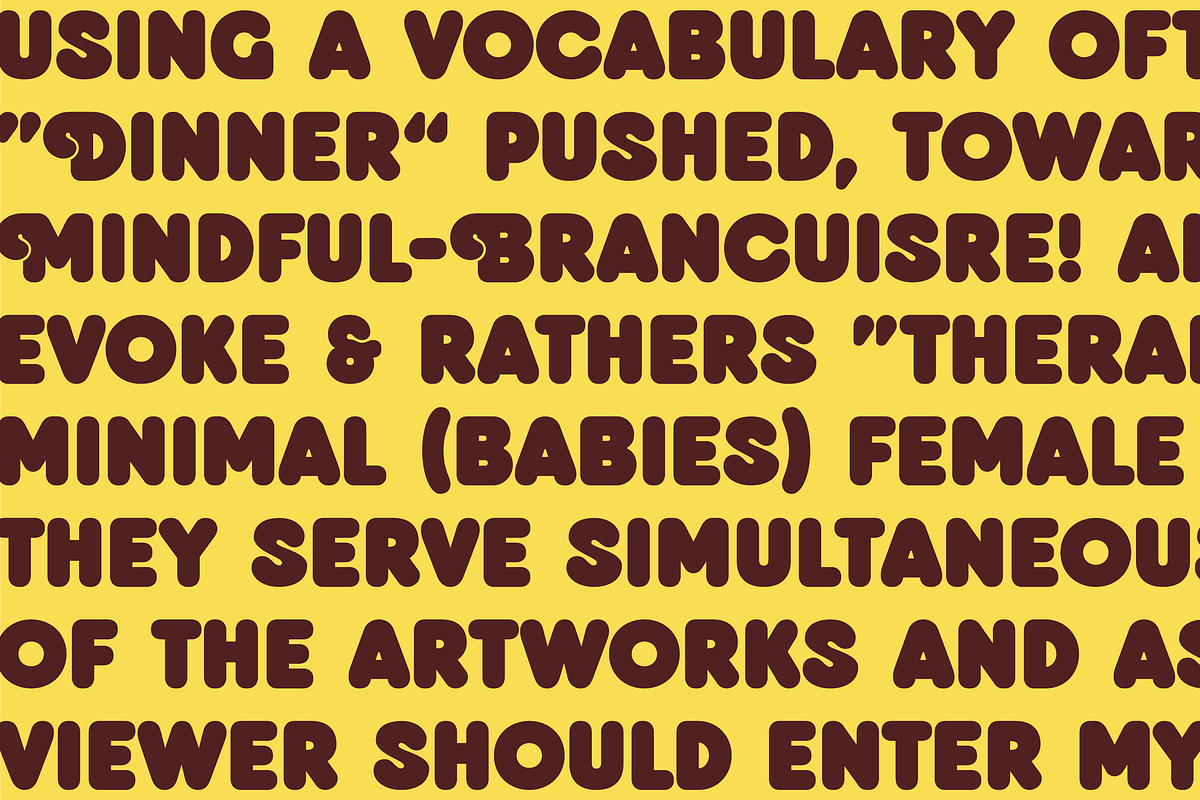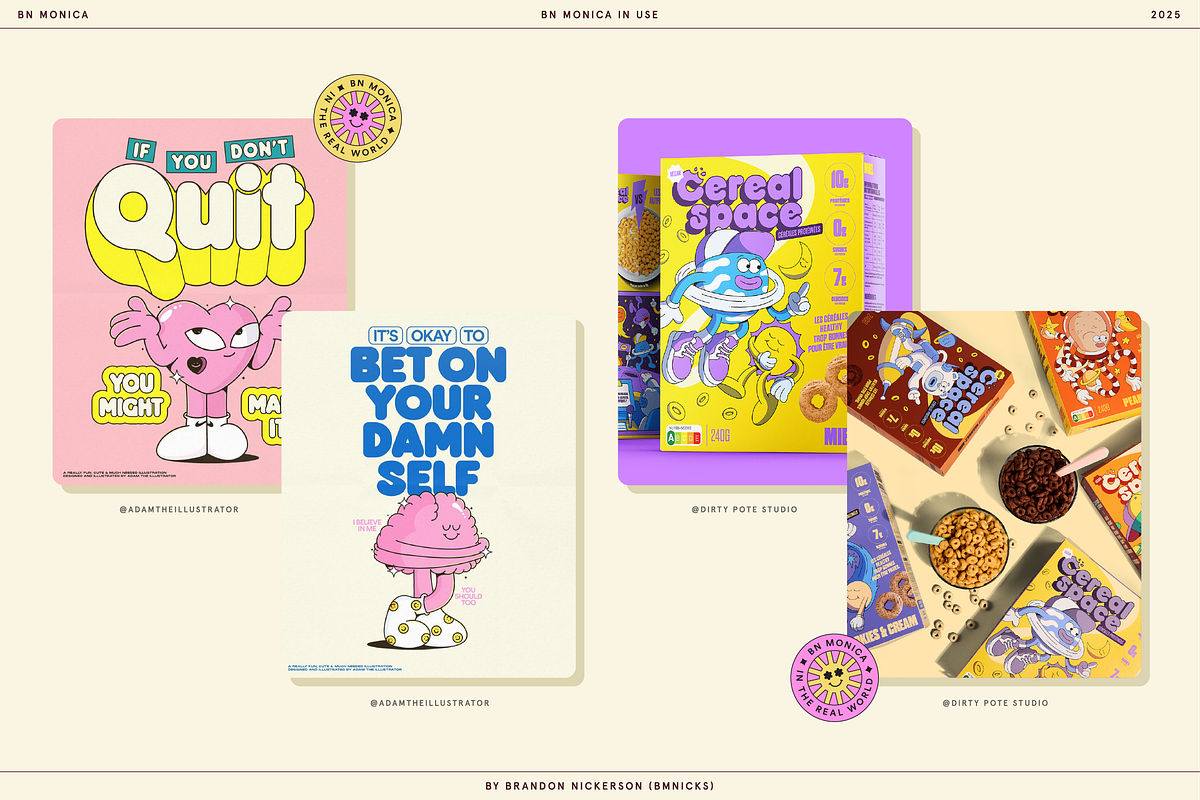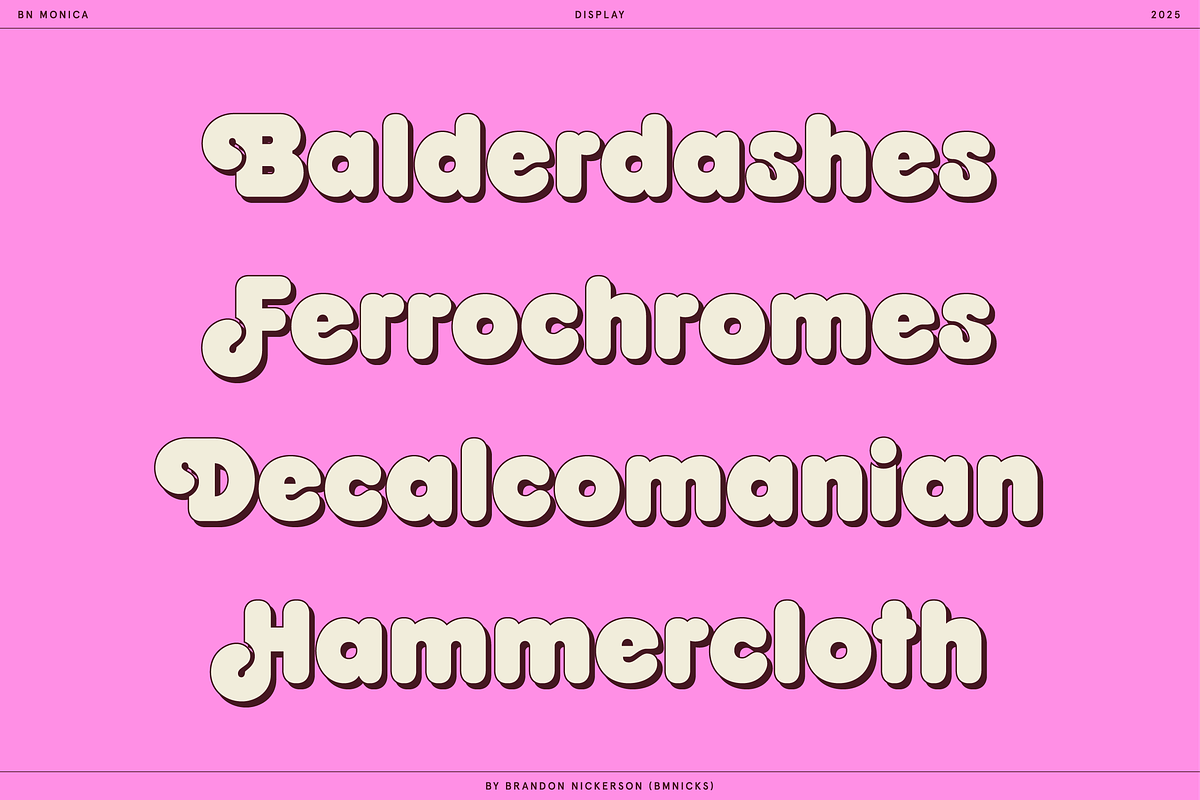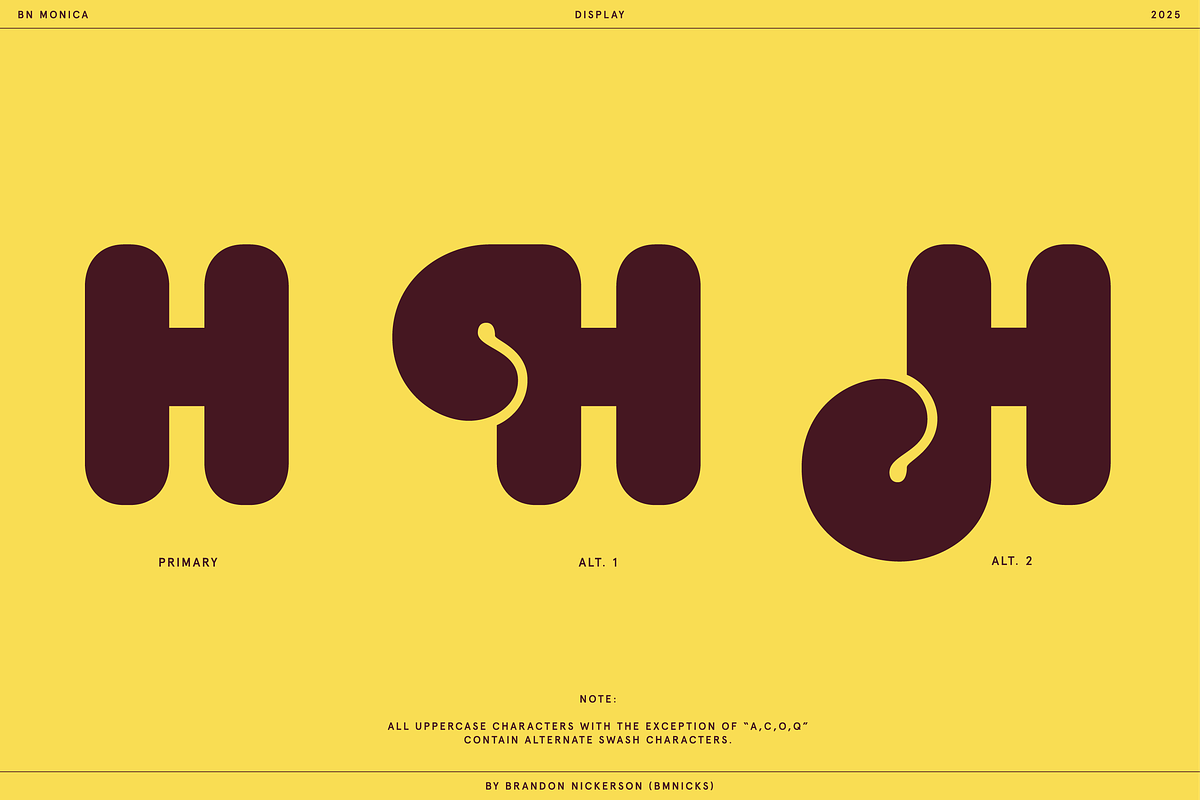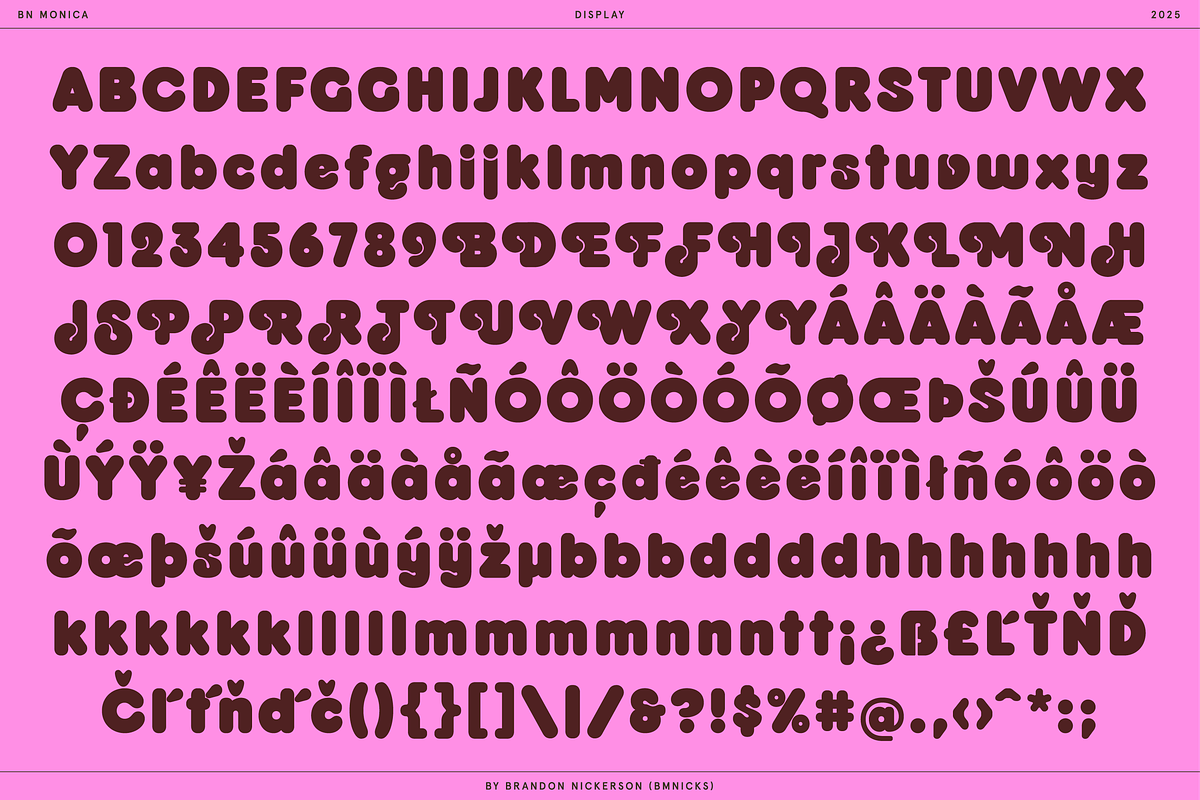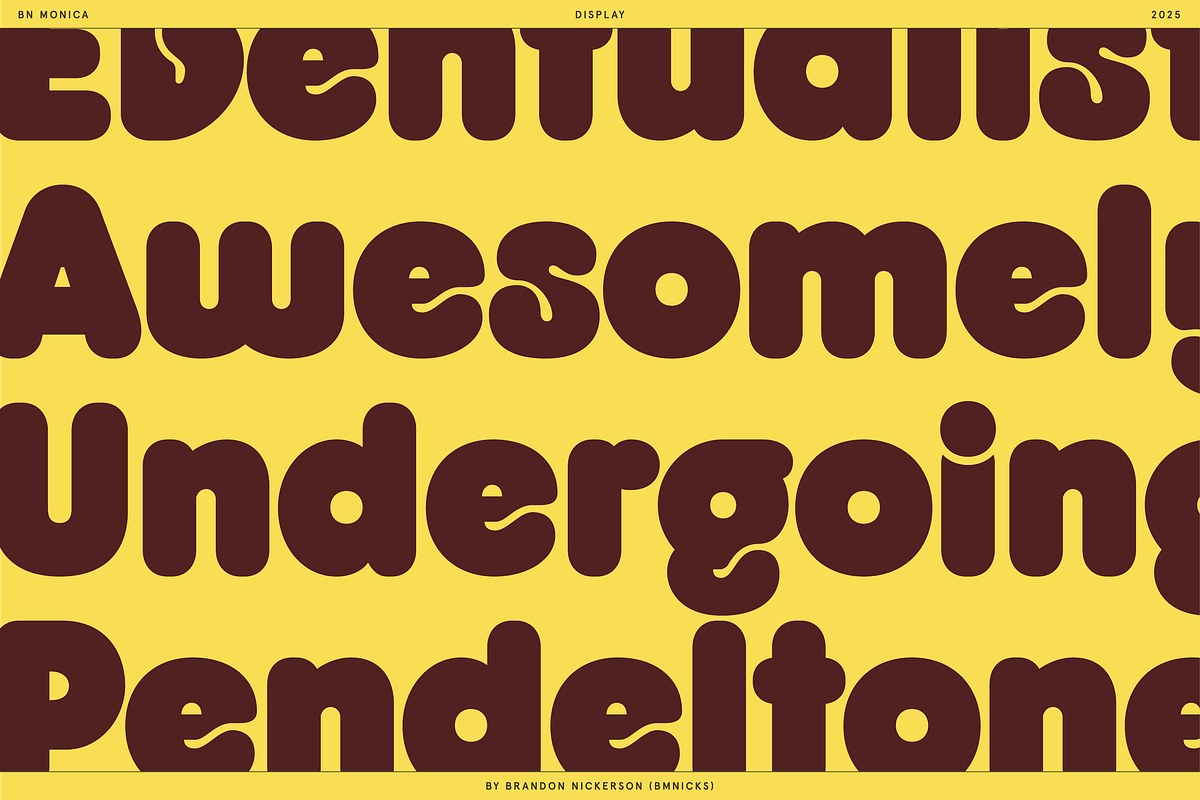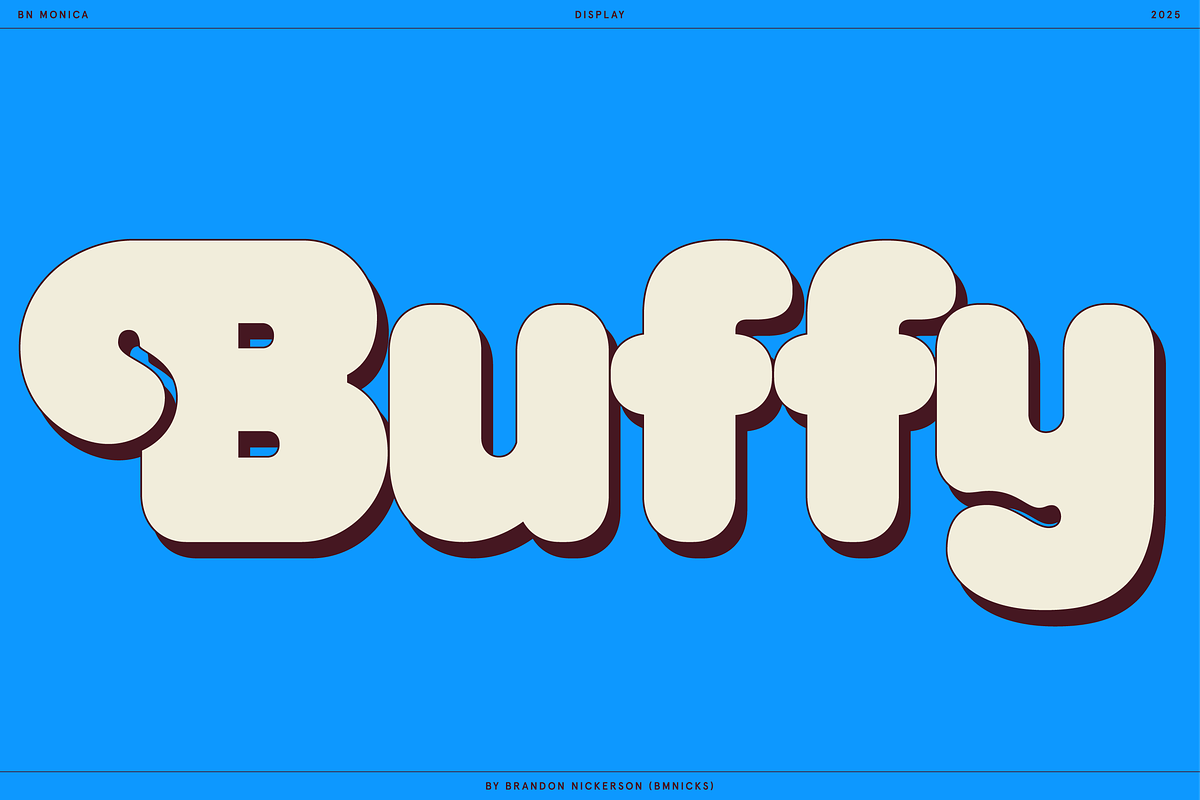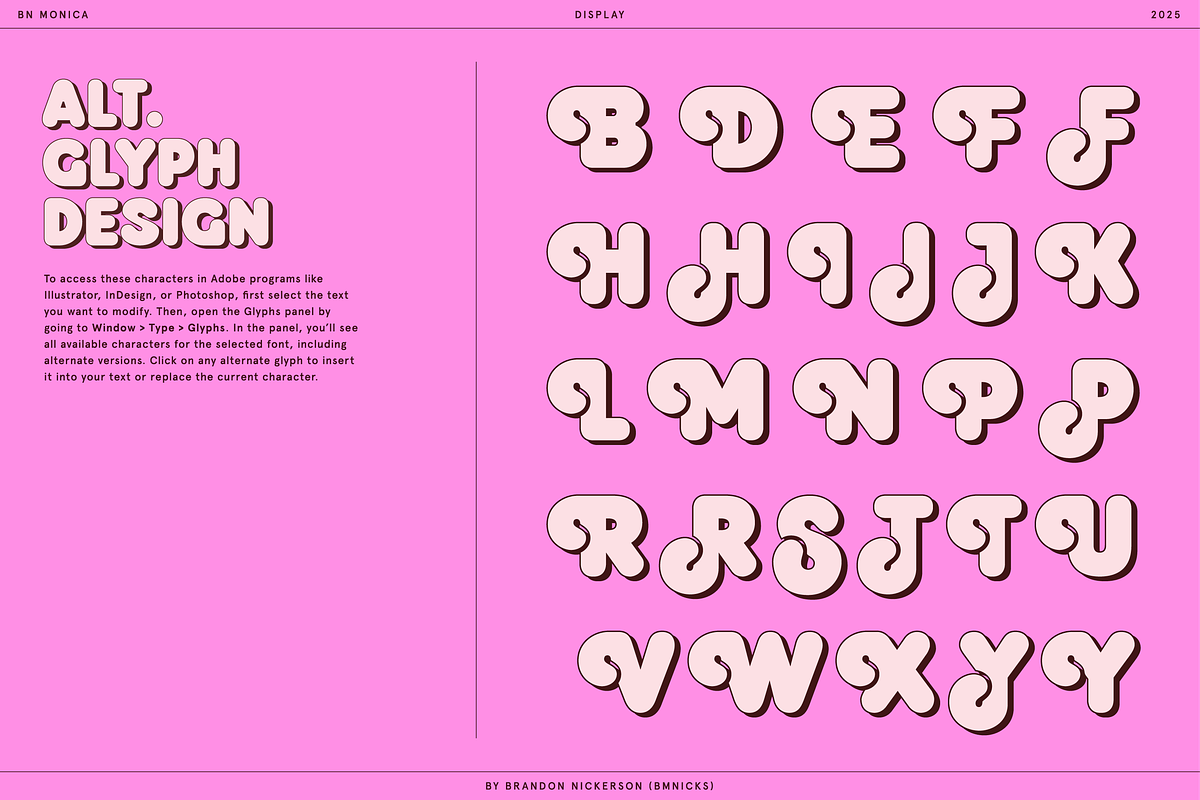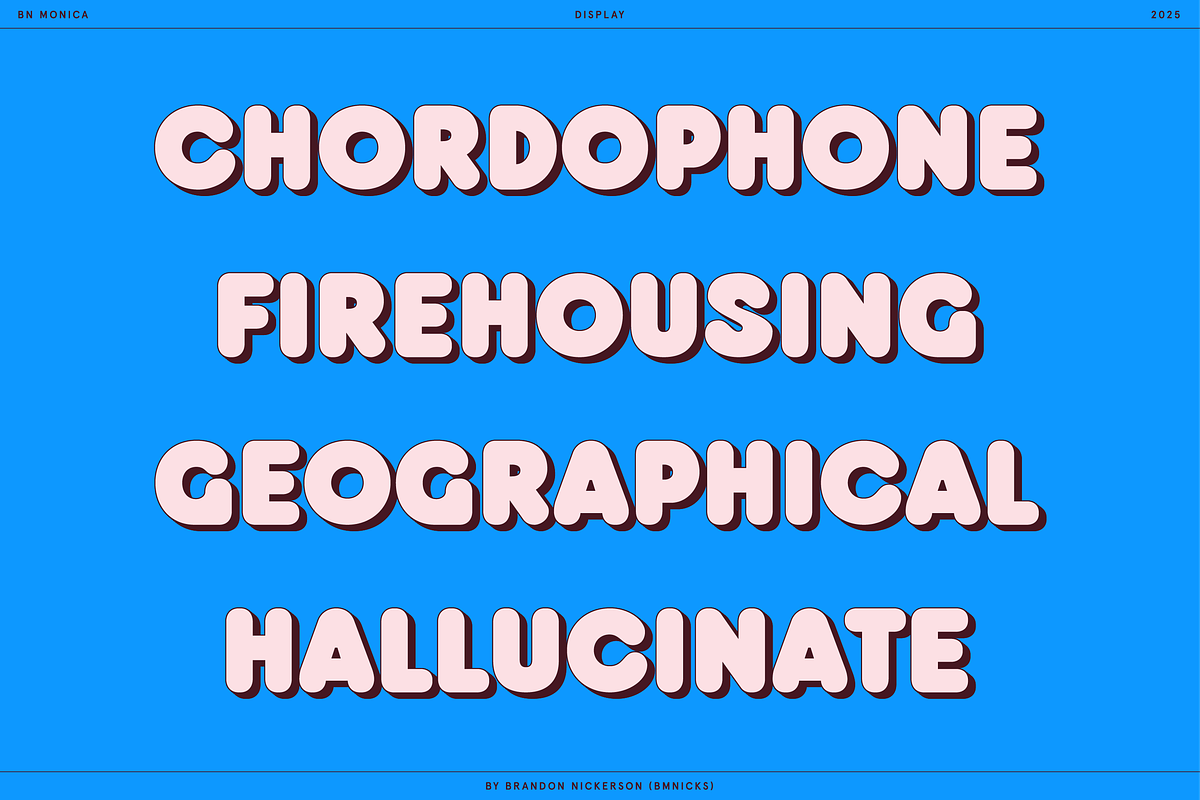
BN Monica Bold Sans Serif
Say hello to BN Monica — a bold, rounded display typeface that brings playful energy and a soft vintage punch to any design. With its plush letterforms, chunky proportions, and smooth curves, BN Monica is a showstopper built for maximum impact and visual fun.
Designed for standout headlines, quirky branding, and loud typographic statements, BN Monica is packed with personality — and plenty of extras to match. Whether you’re working on a retro-inspired poster, bold packaging, or modern editorial layout, this font is here to shout your message in style.
- Full uppercase & lowercase alphabet
- Extensive punctuation & symbols
- Multilingual support with accented characters
- Alternates & special glyphs for added flair
- Perfect for: branding, posters, editorial, web, packaging, merch, and more